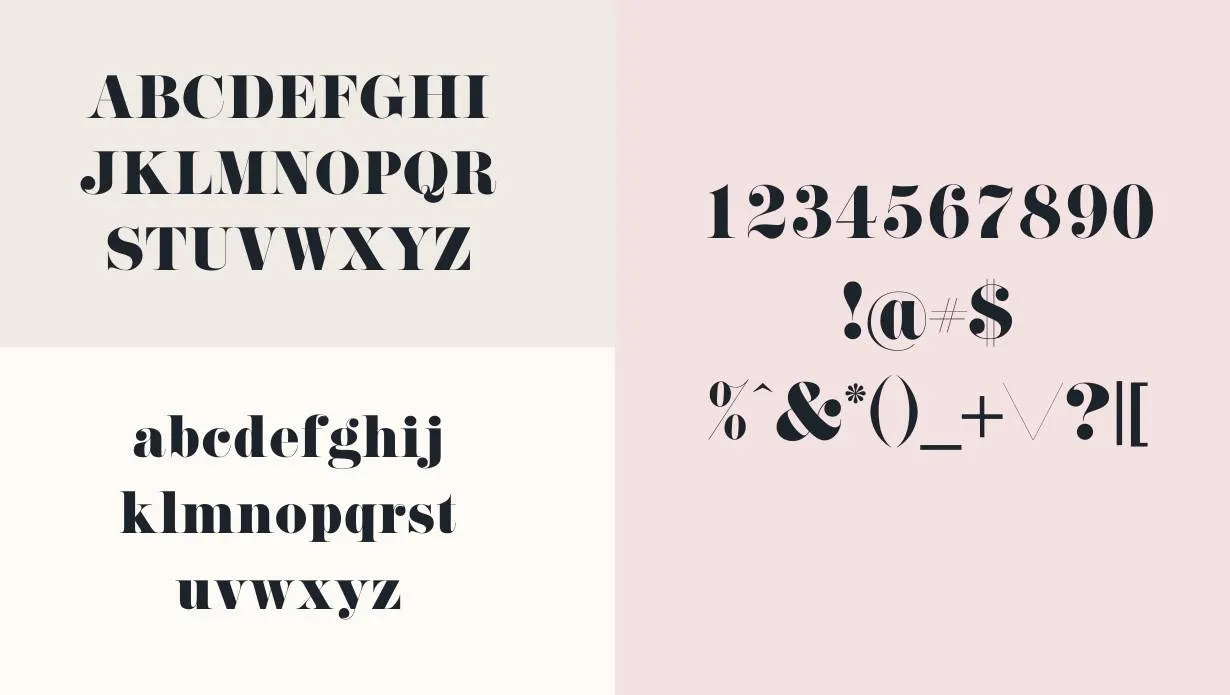
Pistilli Font is a decorative typeface with a unique and eye-catching appearance, ideal for creating attention-grabbing designs. It is a Basic Serif Font that is available in Otf and Ttf file versions.
Pistilli Font Family
Herb Lubalin and John Pistilli are capable designers who took charge and designed this font and released it in 1964, you can easily utilize Pistilli Font in your design projects using Canva and Adobe Photoshop for a captivating visual impact.